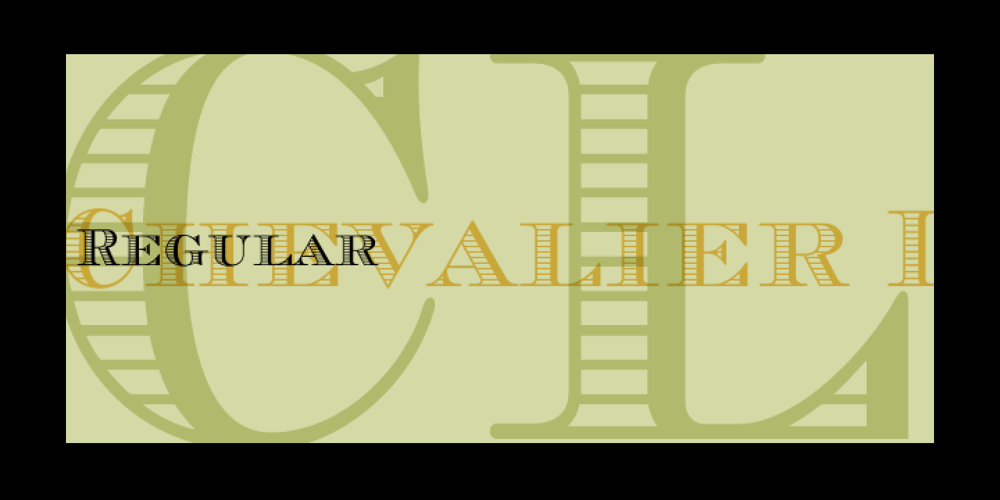
Chevalier LP Font Family was designed by Garrett Boge and published by LetterPerfect. Chevalier LP contains 1 styles and family package options. Chevalier LP is a revived decorative face with a European lineage. Its patterned and shaded ‘fatface’ letterforms exhibit the continent’s 19th century fascination with elaborate engraving techniques, often used on currency as a deterrent against counterfeiting. It is not without reason that Chevalier conjures up images of bank notes and finance.